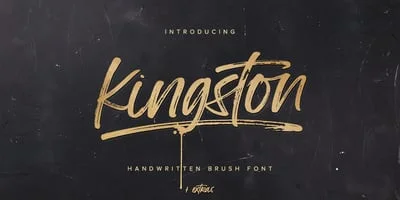
Kingston Font
Kingston Font is perfect for royal heritage branding, regal corporate communications, prestigious university materials, monarchy-themed publications, noble family crests, and distinguished institutional designs. Its majestic character makes it ideal for royal museums, heritage foundations, aristocratic estates, luxury crown jewelers, and any application requiring dignified typography that conveys royal authority, noble heritage, and the timeless elegance of monarchical traditions.
Kingston Font is exciting because it embodies the sovereign dignity and royal grandeur of monarchical heritage through regally crafted letterforms that reflect centuries of royal tradition and noble distinction. Its majestic proportions and aristocratic details evoke the ceremonial splendor of royal courts and the enduring authority of crowned institutions, making it perfect for organizations seeking to convey prestige and institutional gravitas. The font's royal character instantly communicates nobility and distinguished heritage.
Kingston Font family includes royally-inspired weight variations typically featuring Light, Regular, Medium, and Bold options with dignified italic styles that honor monarchical traditions. The family often incorporates royal symbols, crown ornaments, and heraldic elements designed for prestigious heritage applications, providing designers with comprehensive tools for creating authentic, royalty-focused typographic compositions.
When selecting royal heritage typography solutions, Kingston Font represents an exceptional choice for prestigious institutional projects. This distinguished typeface brings instant royal credibility to any design, making it invaluable for heritage organizations, luxury brands, and cultural institutions celebrating monarchical history. Whether you're developing royal museum exhibitions, creating aristocratic brand materials, or designing heritage foundation communications, Kingston Font provides the royal dignity and noble authenticity essential for honoring monarchical traditions in today's heritage-conscious cultural landscape.